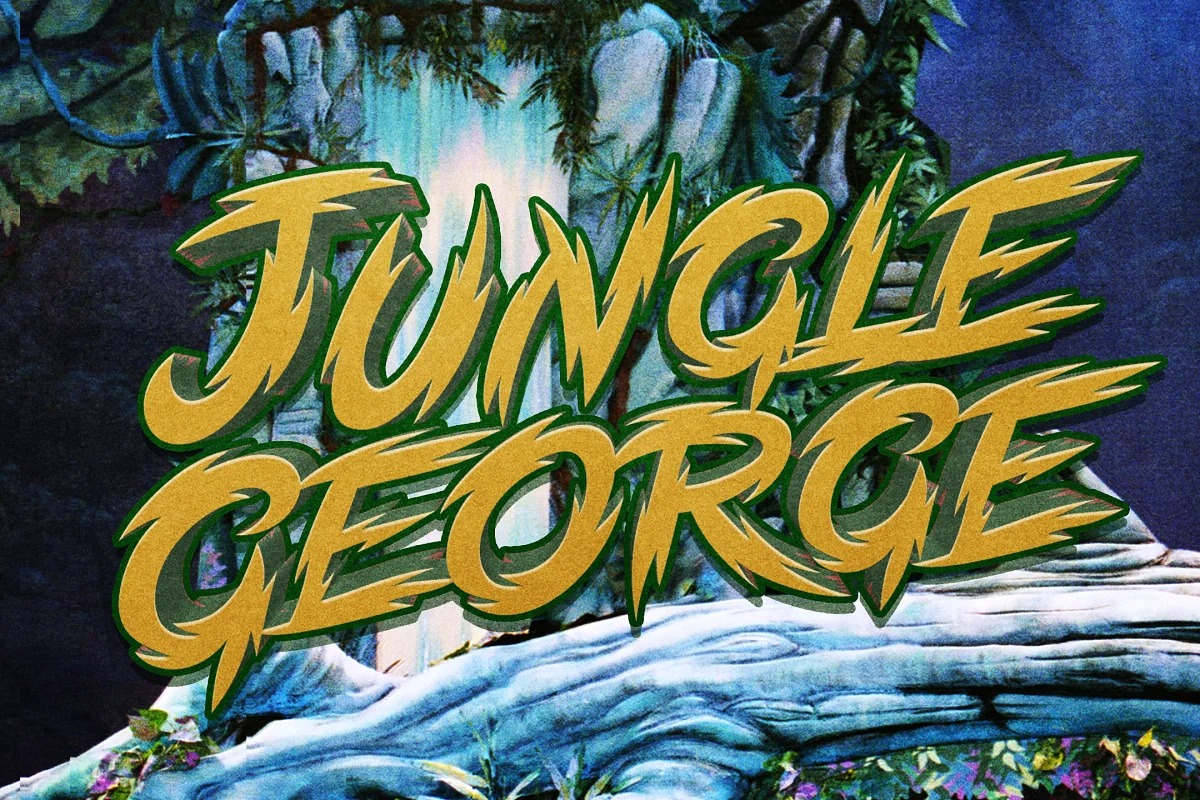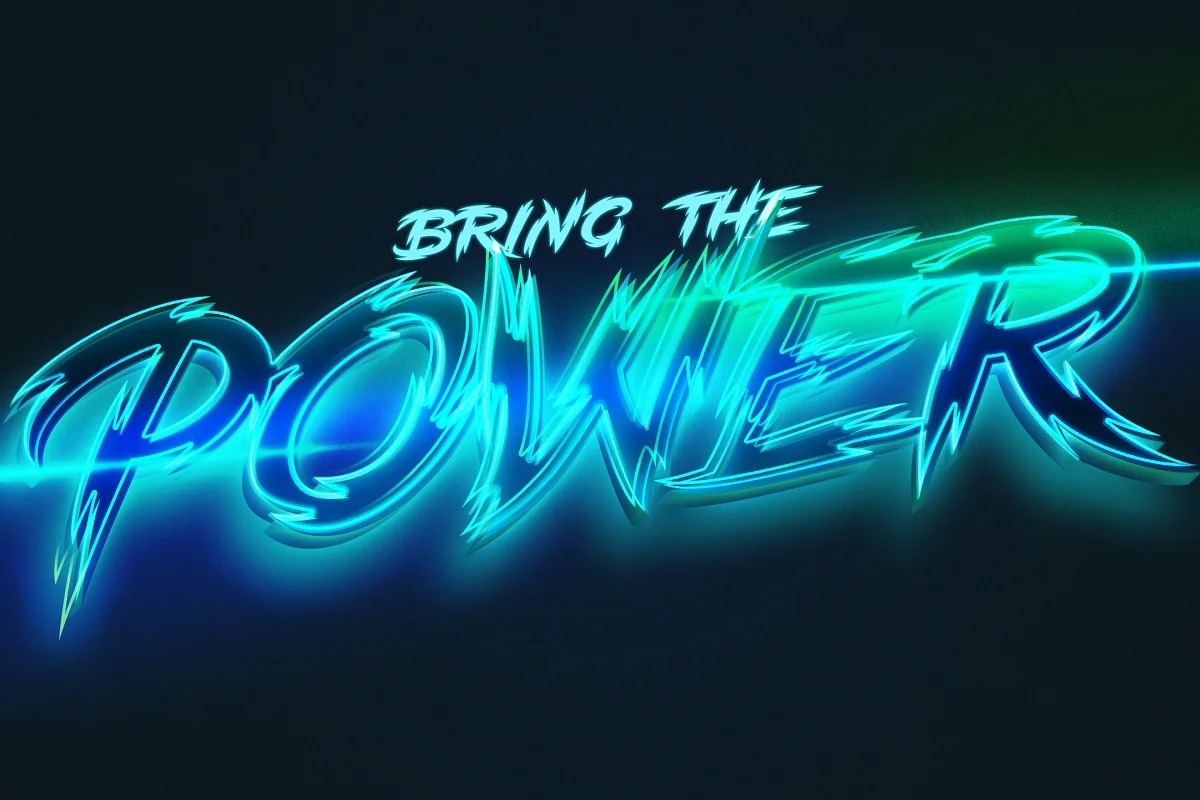
Letric Display Font
This is a font with a unique and nice brush style. Made from font designer named Mans Greback. With traits of a brush comic title, it has rough and cut edges, electric in nature but with smooth curves. The strokes are reminiscent of a tiger’s skin, making for a great jungle or wildlife font. Used in the right context, with the right wording, it fits perfectly as a vintage thriller/splatter/horror movie header typography.